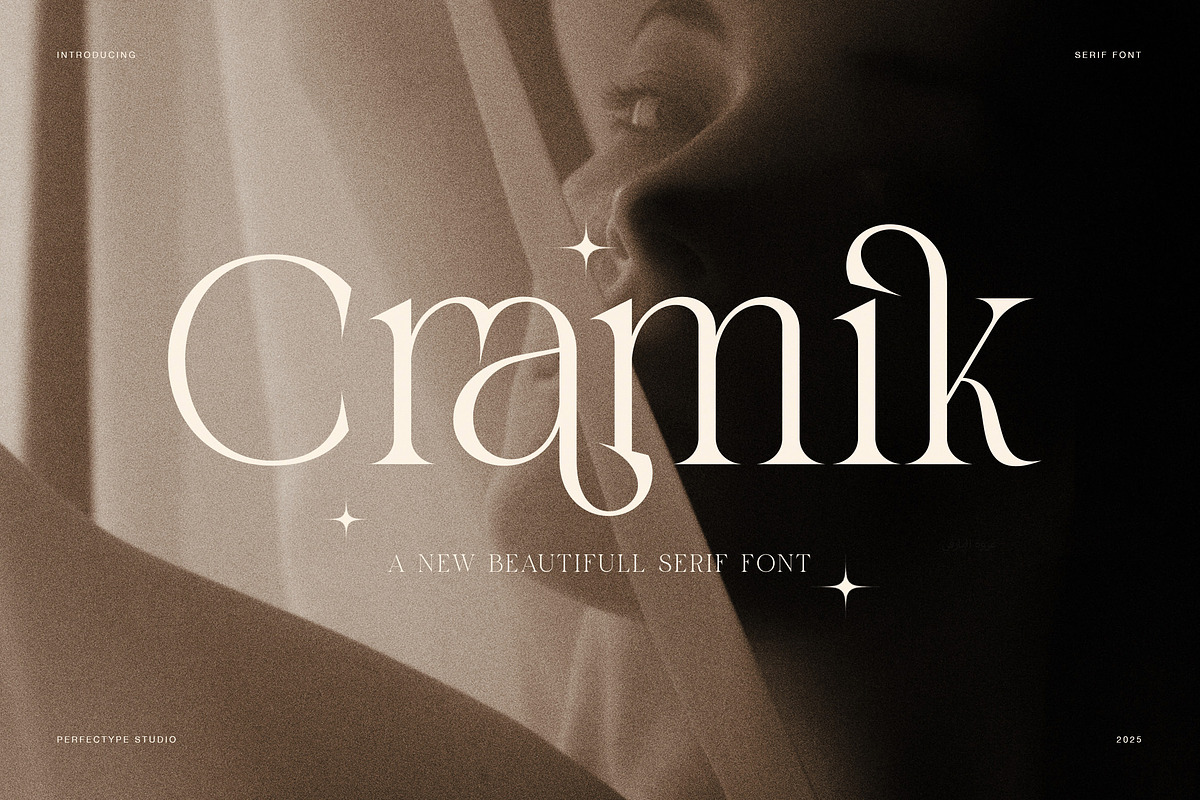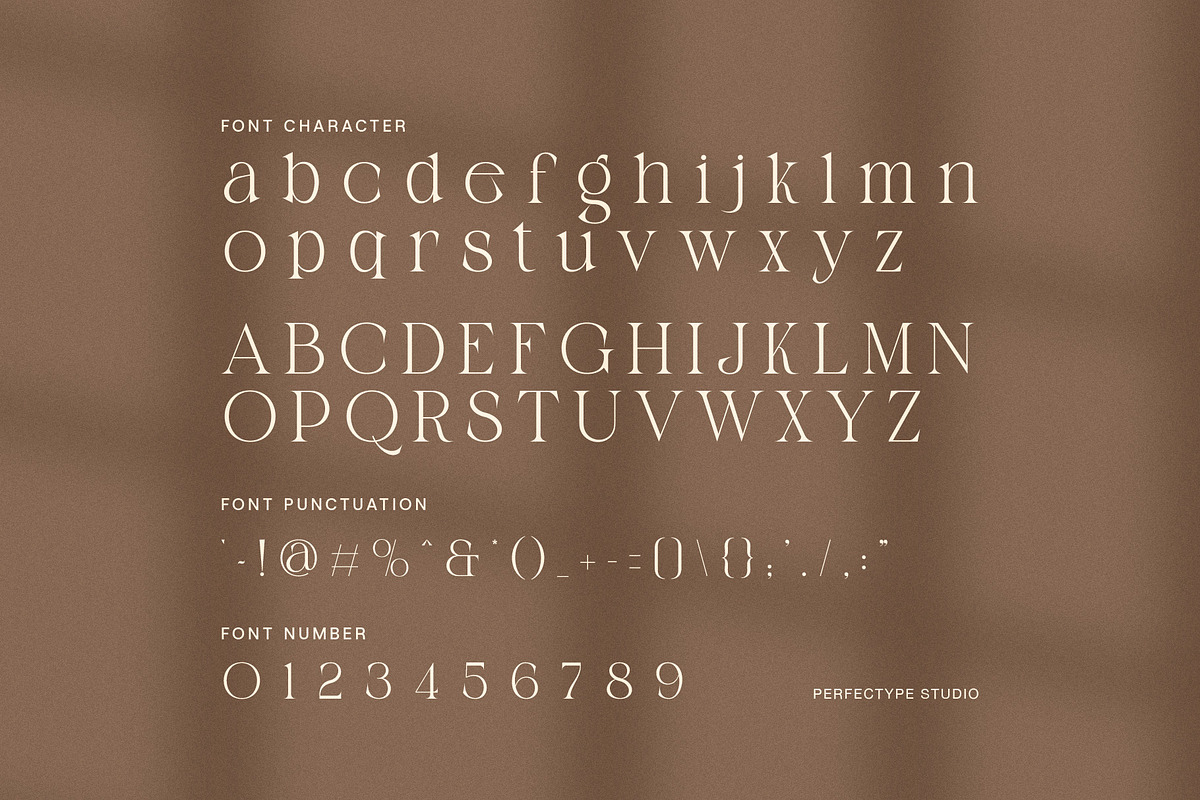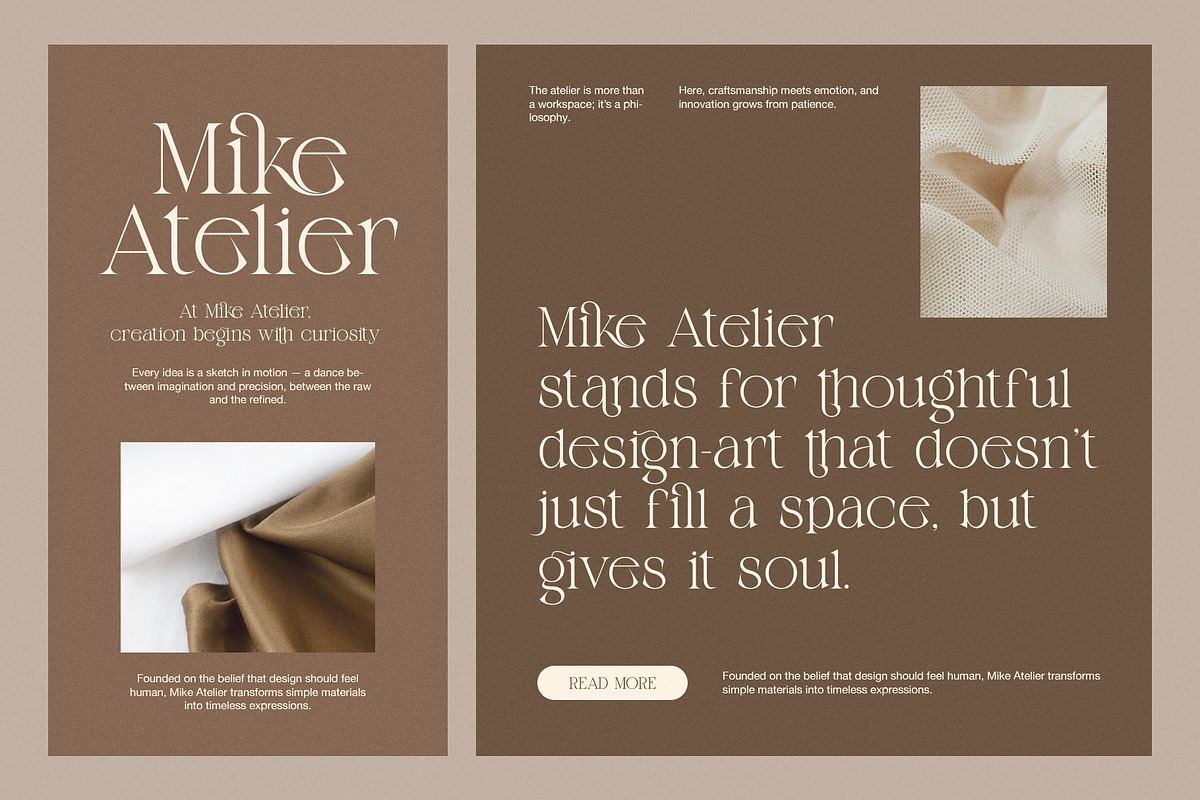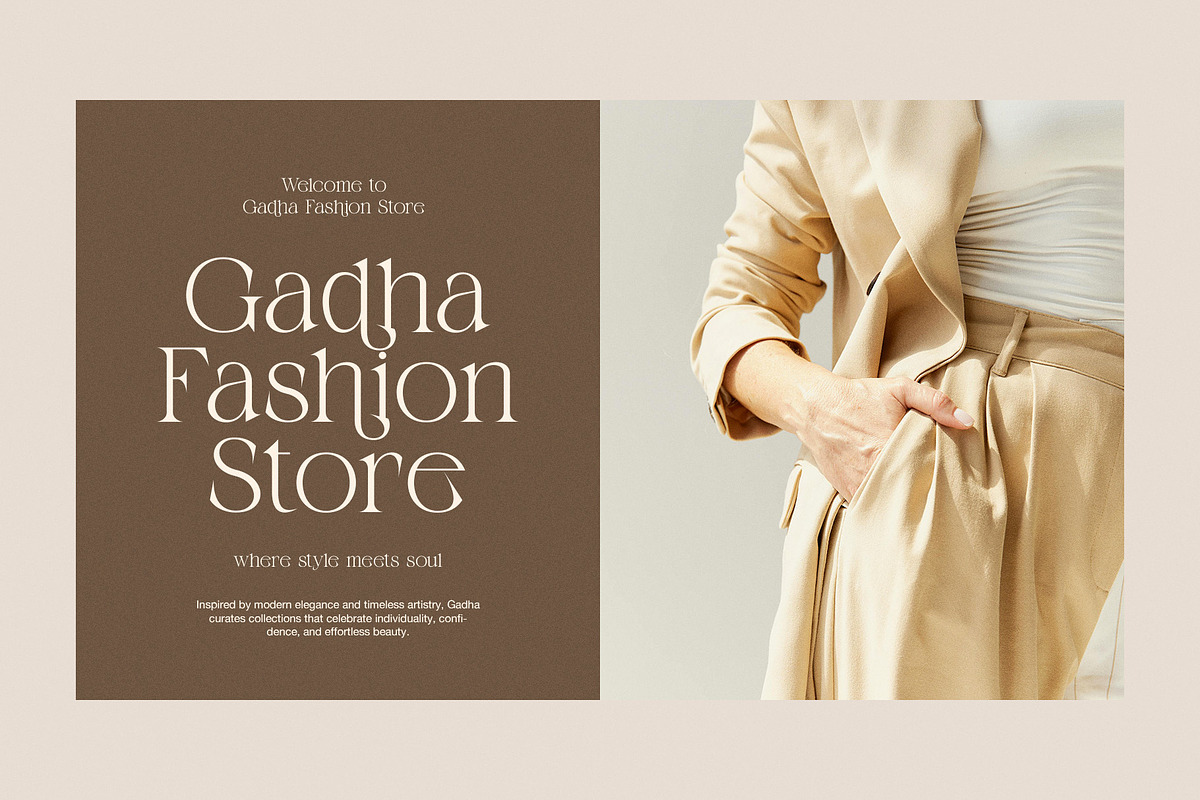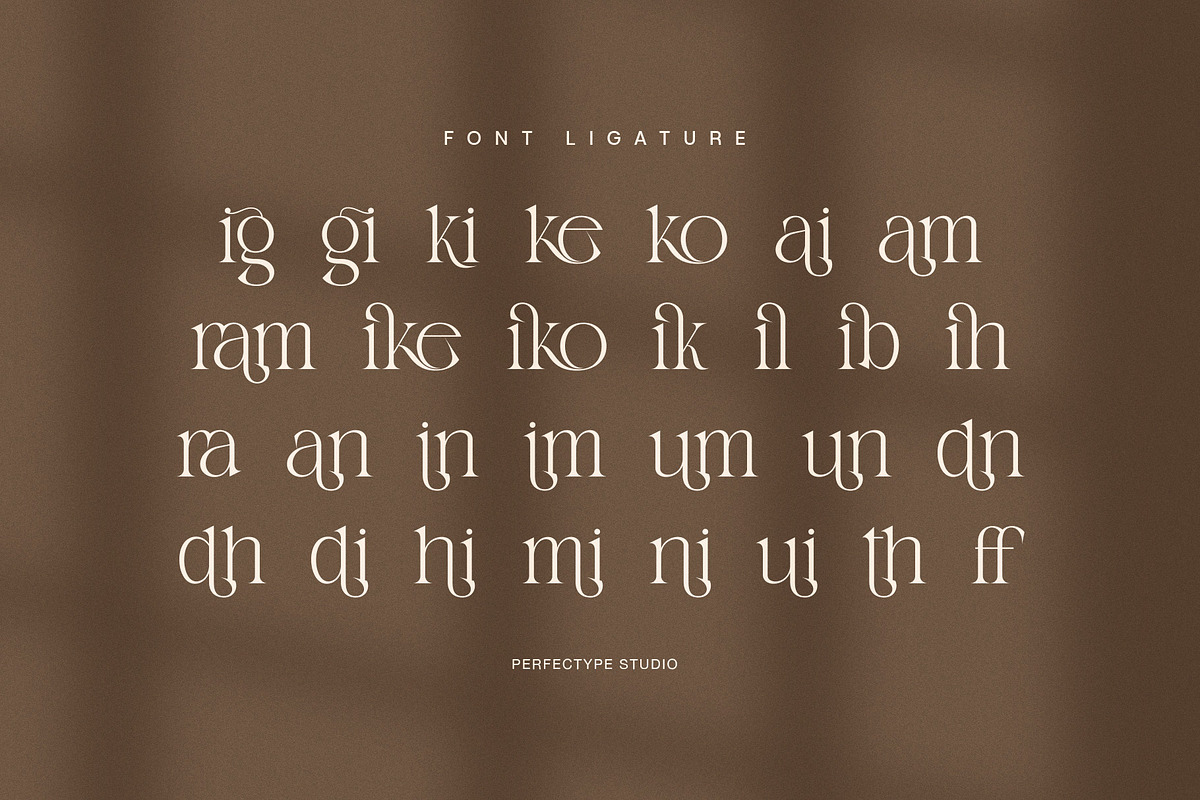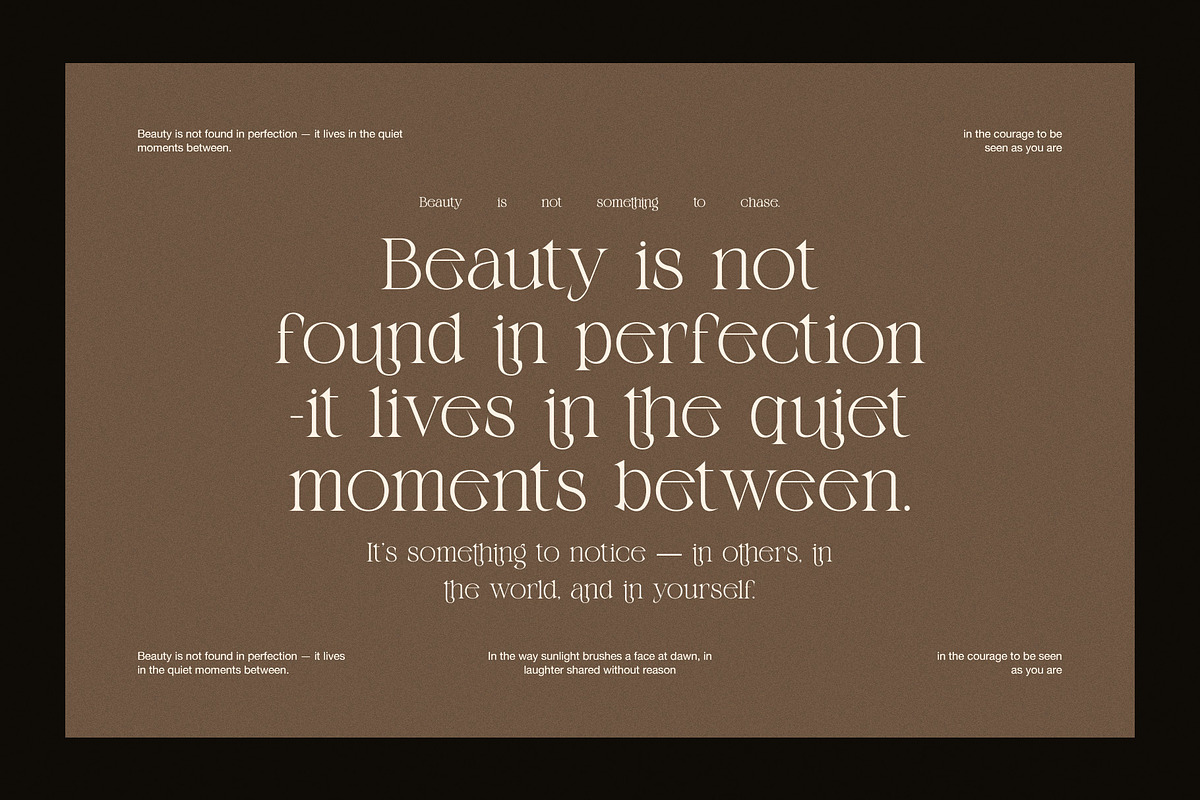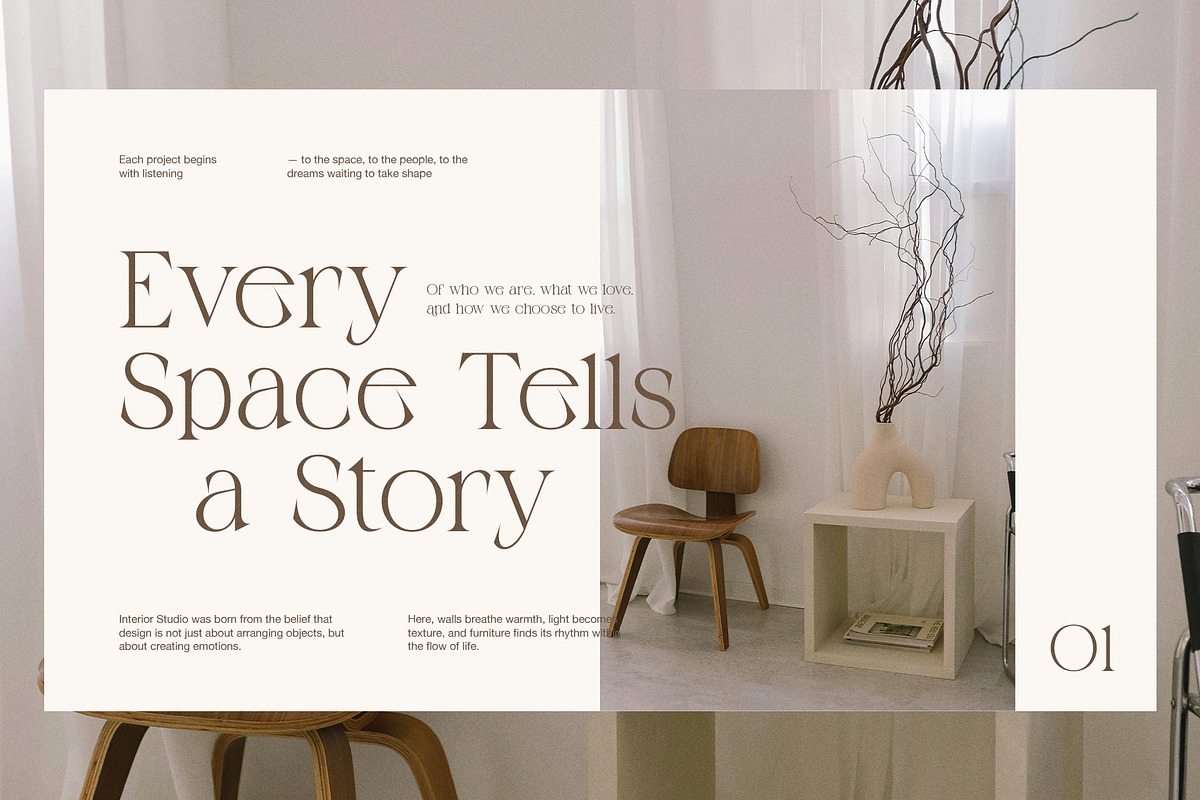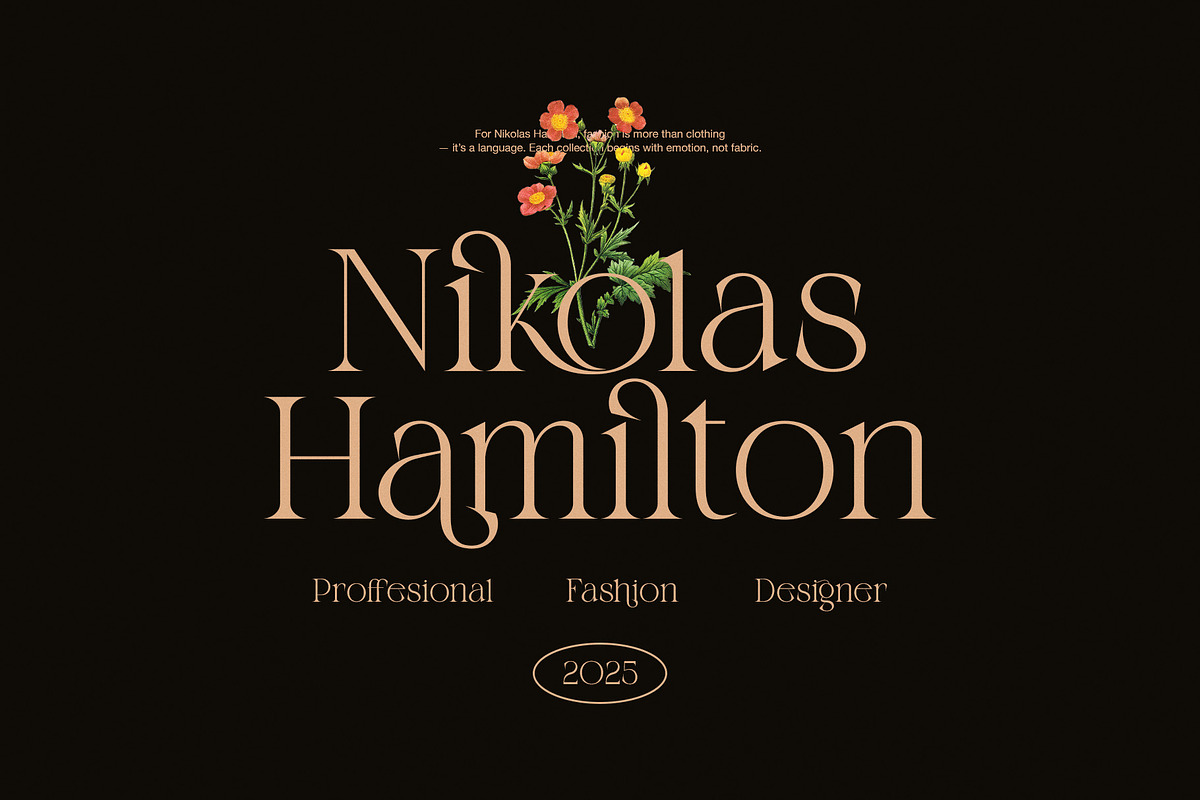
Cramik Elegant Serif Display Font
Cramik is an elegant serif display font designed to deliver a strong visual presence while maintaining refined detail. From the first glance, this font shows confidence, contrast, and balance. Its sculpted serifs and clean letterforms create a timeless feel, yet the overall structure still feels modern and relevant. Because of this balance, Cramik works beautifully across both classic and contemporary design projects.
Moreover, Cramik features carefully shaped strokes that guide the eye smoothly from letter to letter. As a result, headlines remain readable even at large sizes. At the same time, the font brings a premium tone that instantly elevates branding materials. Therefore, designers can use it with confidence for logos, packaging, editorial layouts, and luxury promotions.
In addition, Cramik performs well in both digital and print formats. Whether used on a website header or a printed magazine cover, the font keeps its clarity and elegance. Because the spacing feels natural, text looks neat without extra adjustments. Consequently, your workflow becomes faster and more efficient.
Another advantage of Cramik is its versatility. While it shines as a display font, it also pairs well with clean sans-serif or light script fonts. This makes it easier to build strong visual hierarchy. Furthermore, its professional appearance helps brands communicate trust, quality, and style.
Why Choose Cramik Serif Font?
Elegant serif design with refined contrast
Strong display character for headlines and logos
Clean shapes that support high readability
Suitable for branding, packaging, and editorial use
Works well for both print and digital projects
Timeless style with a modern touch
Overall, Cramik is a smart choice for designers who want a serif font that feels elegant, professional, and versatile. If your project needs a premium look that stands out while remaining tasteful, Cramik delivers consistent results.